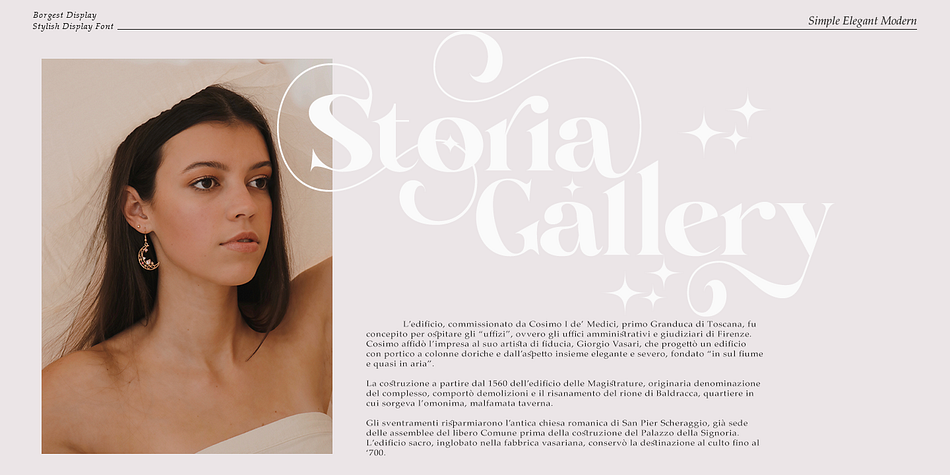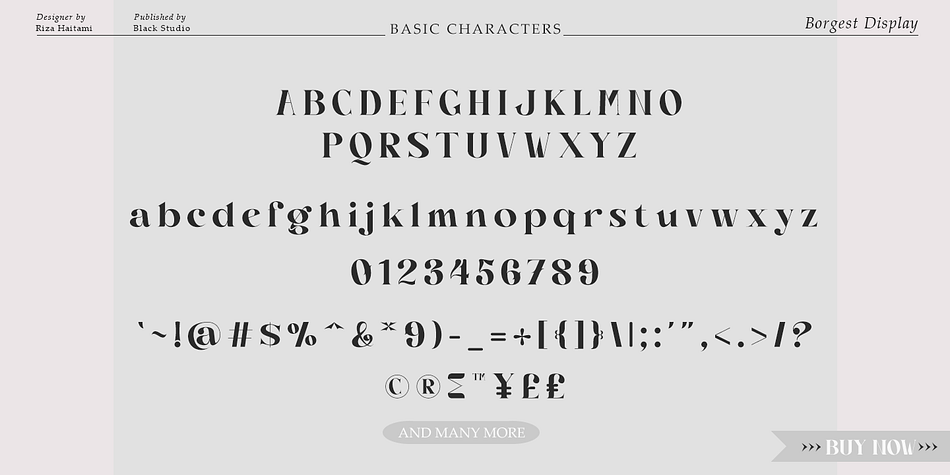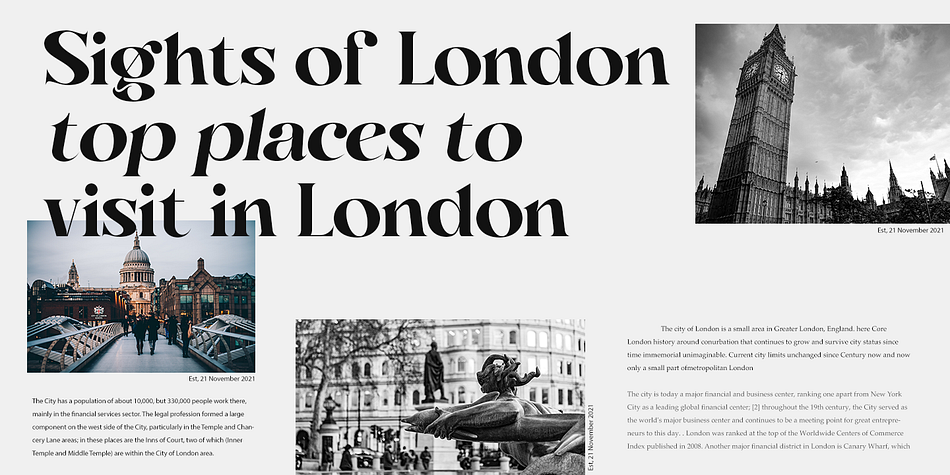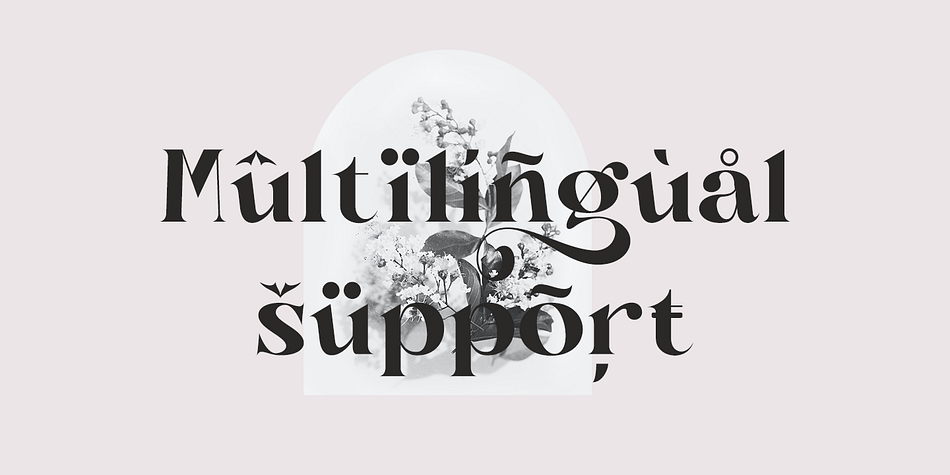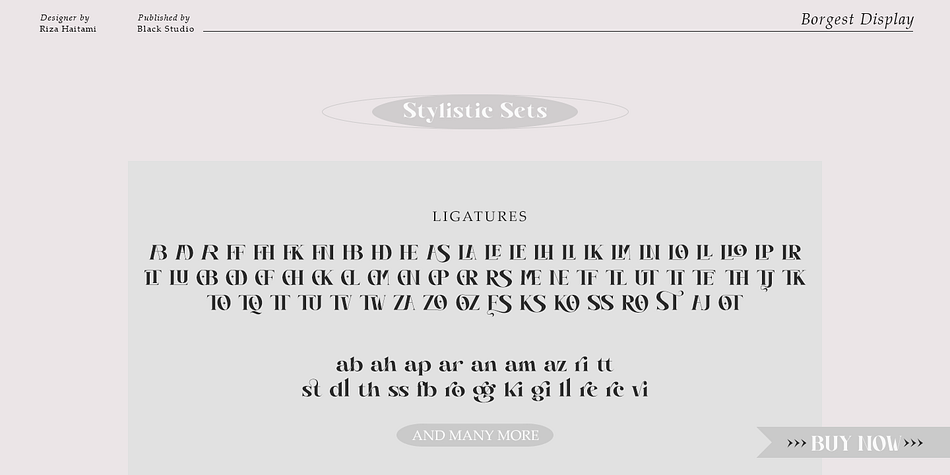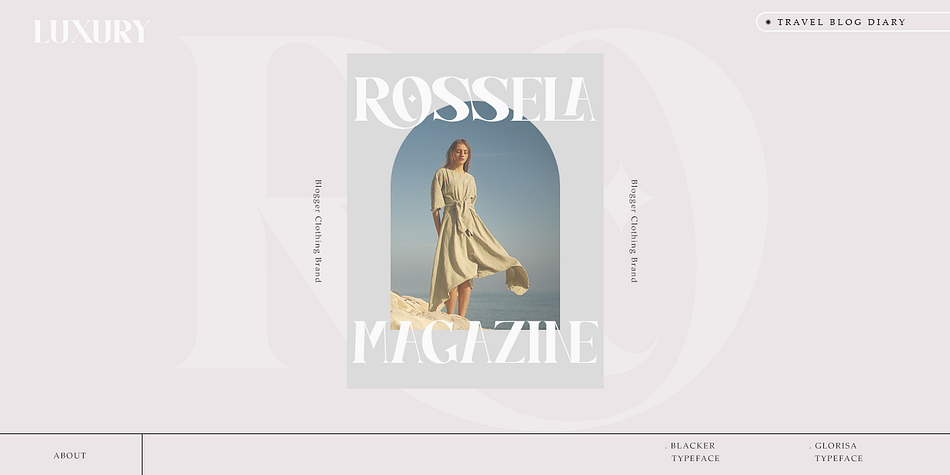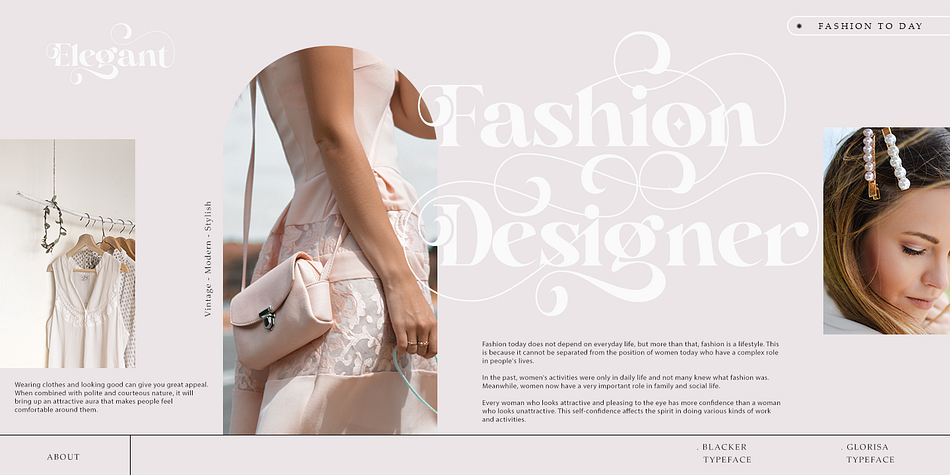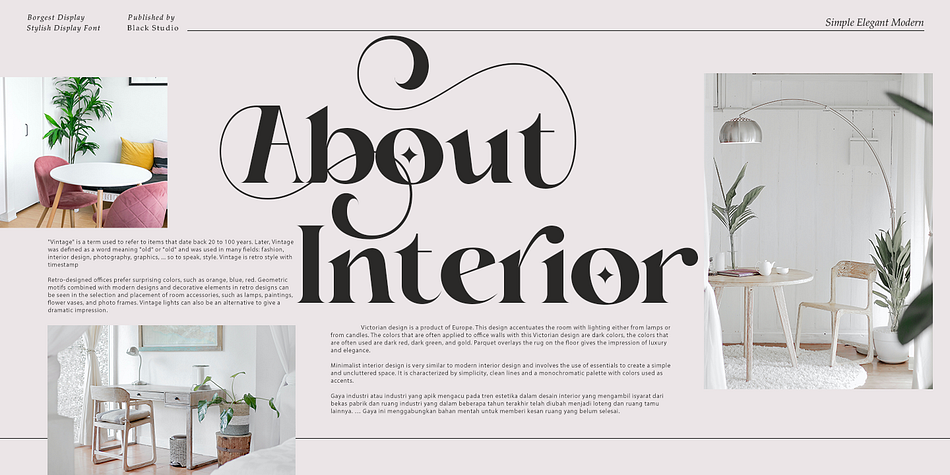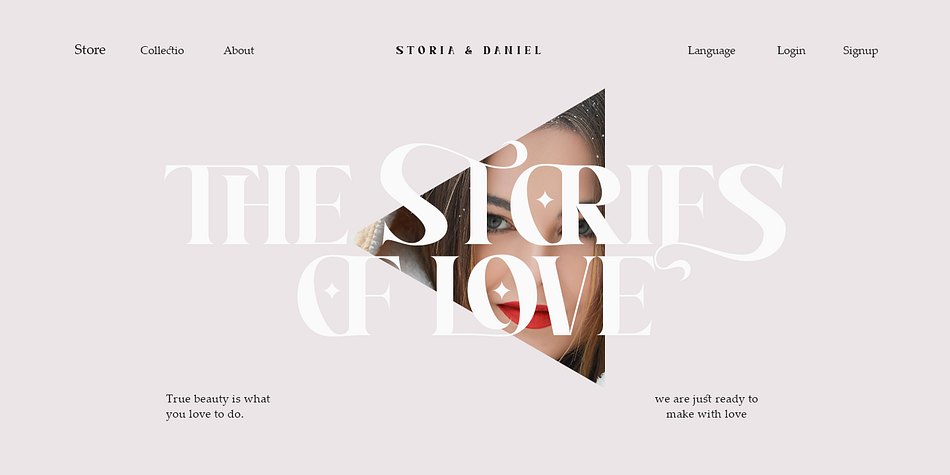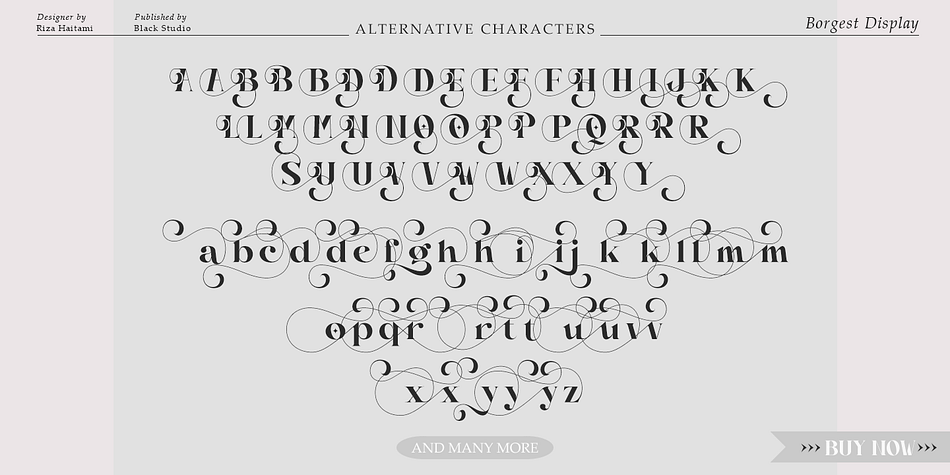
Borgest Display
Borgest Display is a display serif font family. This typeface has two styles and was published by Black Studio.
Introducing,Borgest Display is a serif typeface crafted with elegance and luxury, exuding femininity and glamor but also a side of beauty with plenty of alternatives and ties to help you create endless variations for your creative needs.
Its striking contrasts and subtle details, along with luxurious strokes and voluptuous curves, create a beautiful and powerful statement for any typographic composition, blending glamor with contemporary aesthetics.
Borgest Display elegant serif really helps you create unlimited variations for your creative needs in making your project titles: such as fashion, magazines, logos, branding, photography, invitations, wedding invitations, quotes, blog headers, posters, advertisements, postcards, books , websites, etc.
• Full set of uppercase, lowercase
• 87 Ligatures
• 85 Alternatives
• Numbers, symbols & punctuation
• Characters with accents
• Support Multiple Languages